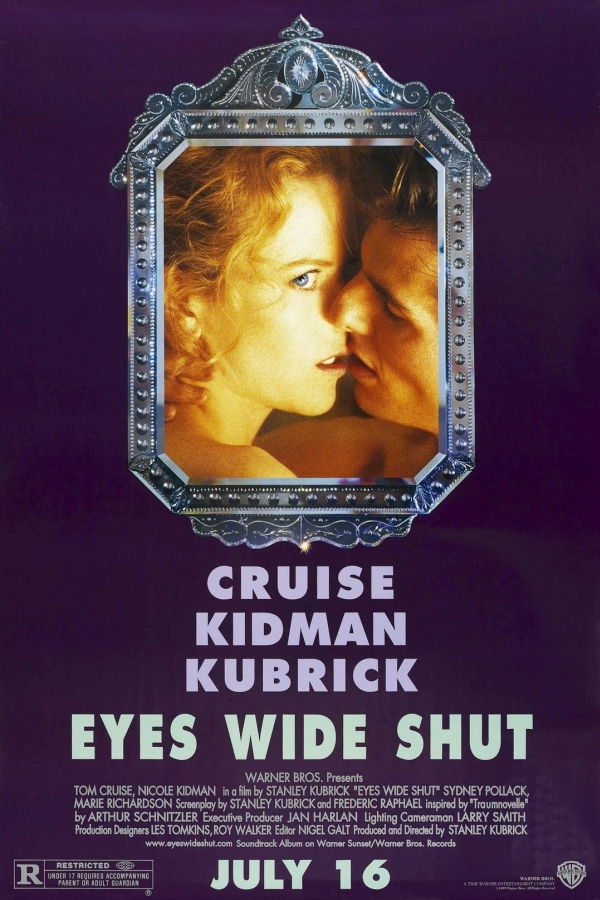
Eyes Wide Shut Font
Fonts in UseEyes Wide Shut is a 1999 psychological thriller film directed by Stanley Kubrick starring Tom Cruise and Nicole Kidman.
The movie title in the poster of Eyes Wide Shut features Futura Extra Bold, a geometric sans-serif font designed by Paul Renner in 1927. More information about this typeface can be found here.